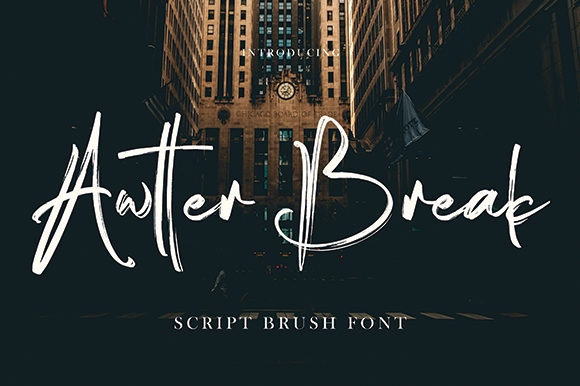
The Awtter Break Font: A Flowing Brushed Handwritten Delight
I’ll never forget the design project that led me to discover the Awtter Break font. I was working on a wedding invitation for a close friend, and I was struggling to find the perfect font that captured the elegant yet playful vibe of the couple. That’s when I stumbled upon Awtter Break, a flowing brushed handwritten font that instantly won my heart. In this article, I’ll share my experience with this beautiful font, its features, and how to make the most of it in your designs.
So, what do I love about Awtter Break? 🤔 Here are a few things that make it stand out:
- ✨ Unique and elegant handwritten style that’s perfect for special occasions
- ✅ Highly versatile and can be used for various design projects, from logos to posters
- 💫 Beautifully crafted with attention to detail, making it a joy to work with
Of course, no font is perfect, and Awtter Break has a few small quirks:
- ⚠️ Some letters may require manual kerning for optimal spacing
- 🤔 Limited availability of certain characters, such as ligatures
The Designer Inspiration Behind Awtter Break
While I couldn’t find any information on the specific designer behind Awtter Break, it’s clear that they were inspired by the beauty of handwritten typography. The font’s flowing, brushed style is reminiscent of traditional calligraphy, with a modern twist. Whether the designer was inspired by classic scripts or modern handwriting, Awtter Break is a testament to the power of typography to evoke emotions and create connections.
| Font Name | Awtter Break Font |
| Author | Pineungtype & Missinklab |
| What type of projects is Awtter Break best suited for? | Awtter Break is highly versatile and can be used for various design projects, including logos, wedding invitations, headings, t-shirts, letterhead, signage, labels, news, posters, badges, and more. |
| Is Awtter Break a difficult font to work with? | No, Awtter Break is a relatively easy font to work with, especially for designers familiar with handwritten typography. However, some letters may require manual kerning for optimal spacing. |